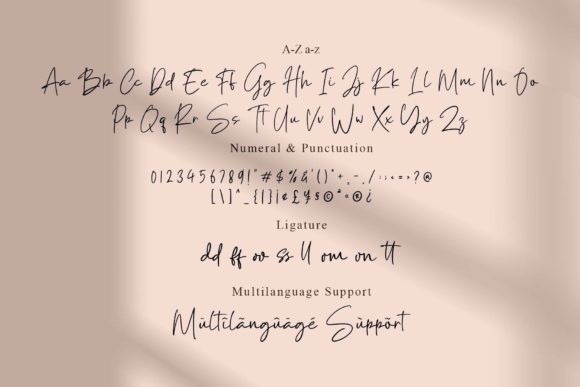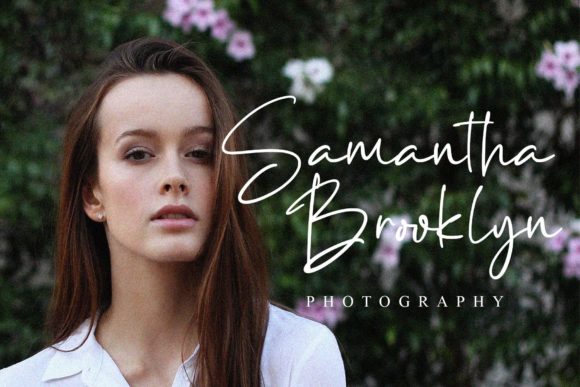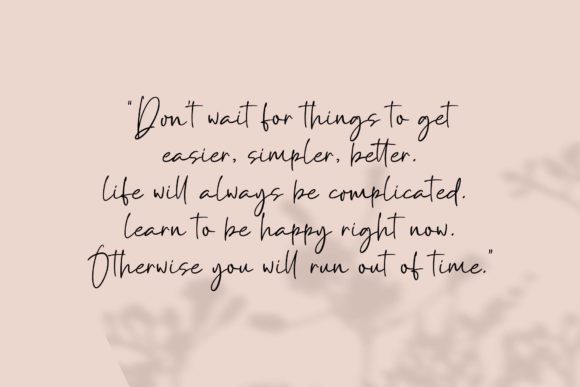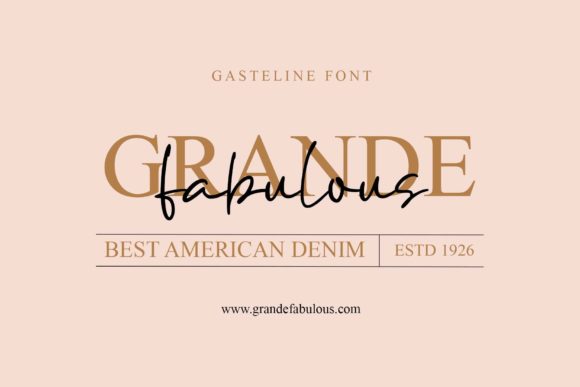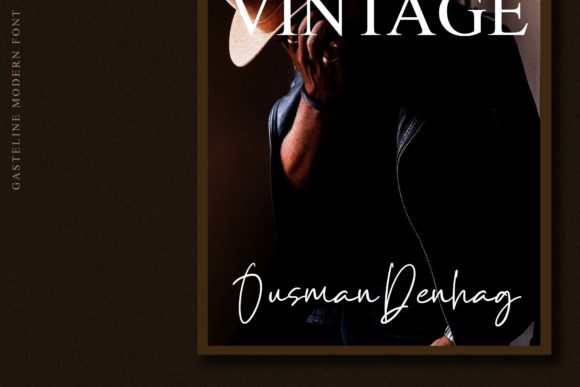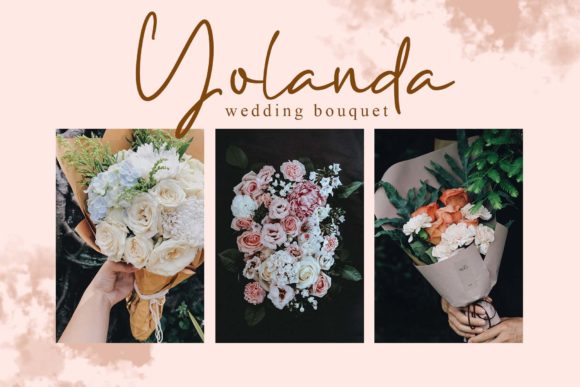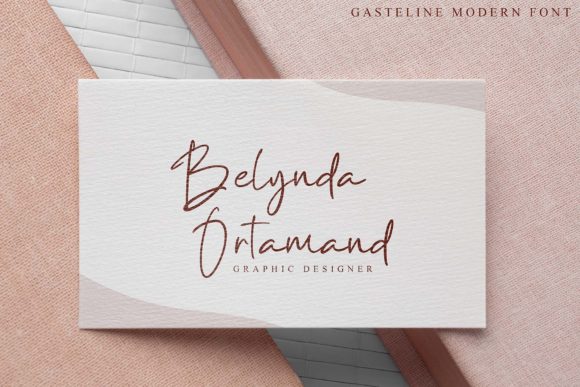
Gasteline Font
About Gasteline Font
Gasteline is a stylish and modern handwritten font with a natural flow of hand-drawn touch. It is perfect for branding, signature, wedding invites, and more.